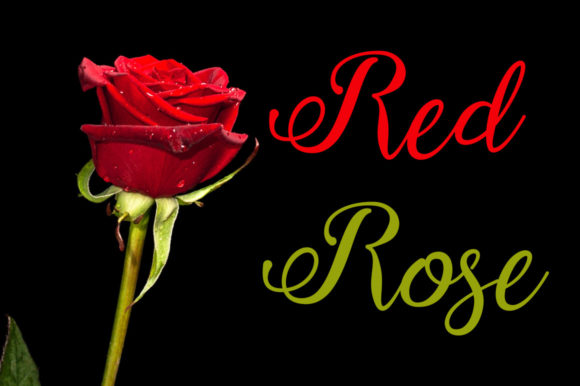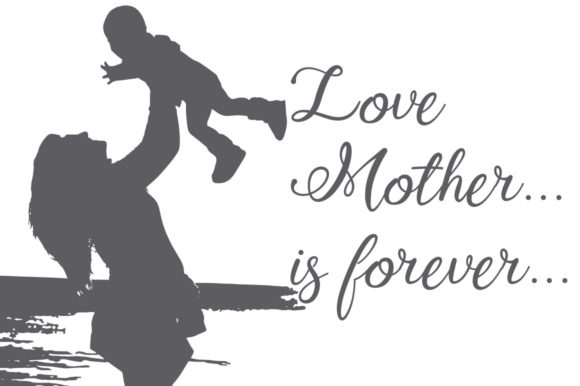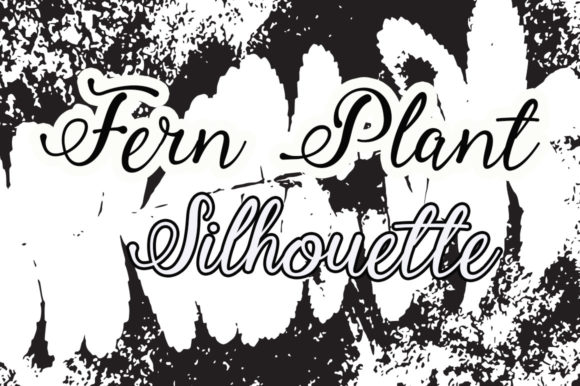
Introduction to Nyargress Font
Imagine you’re brainstorming ideas for a new brand, and suddenly, a spark of creativity hits you. You envision a beautiful, elegant script font that perfectly captures the essence of your vision. That’s where Nyargress Font comes in – a delicate and fashionable script font that will elevate any creative project to the next level.
As a designer, you’re always on the lookout for high-quality design resources that can help bring your ideas to life. With Nyargress Font, you’ll have access to a versatile and stylish font that’s perfect for logos, t-shirt printing, and creative products. Its transparent background and crisp lines make it a valuable addition to any design arsenal.
Key Features of Nyargress Font
- Unique, hand-drawn design ideal for creative projects and artistic expressions
- Transparent background option, allowing for effortless layering and customization in creative projects
- High-resolution design, suitable for print and digital applications, including posters, logos, and more
Honest Review: Nyargress Font
I recently had the chance to work with the Nyargress Font, and I must say it’s been a game-changer for my creative projects. This font is perfect for anyone looking to add a touch of elegance to their designs.
- ✨ The Nyargress Font is incredibly versatile and can be used for a wide range of design projects, from logos to typography.
- ✨ The high quality of the font is evident, with crisp and clear lines that make it perfect for both digital and print designs.
- ⚠️ The font may not be suitable for designs that require a transparent background, as the font’s edges can appear slightly blurry.
- ⚠️ The font’s size can become overwhelming if not used sparingly.
Overall, I’m extremely impressed with the Nyargress Font and would highly recommend it to any designer looking for a high-quality, free design resource. Its versatility and elegance make it a valuable addition to any design toolkit.
Tips for Getting the Most Out of Nyargress Font
To get the most out of the Nyargress Font, use it in conjunction with a transparent background. This will allow you to create a high-quality, custom design that stands out from the rest. You can also experiment with different font sizes and colors to achieve the desired look.
The Nyargress Font is ideal for creative projects that require a unique, custom look. Some common use cases include:
Is the Nyargress Font suitable for high-resolution designs?
Yes, the Nyargress Font is designed to be highly legible at various font sizes and resolutions. It’s perfect for creating high-quality designs that will look great on both digital and print materials, from business cards to billboards.